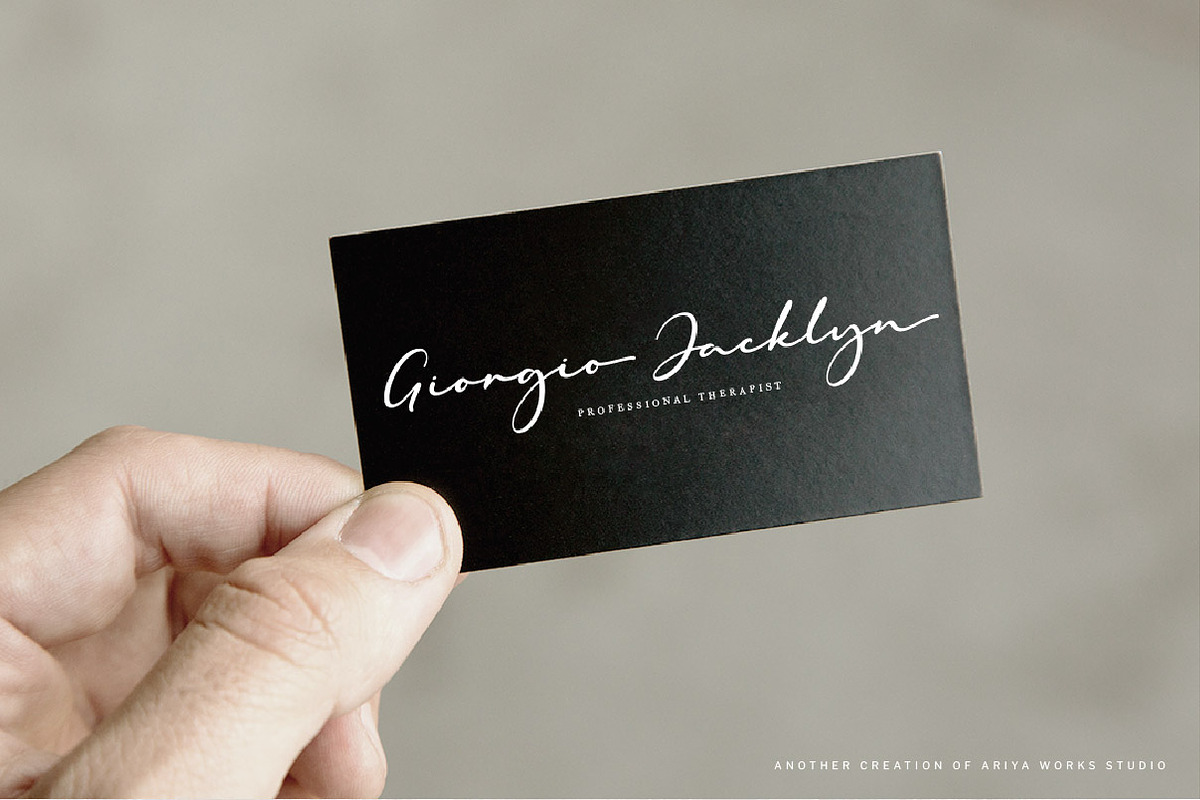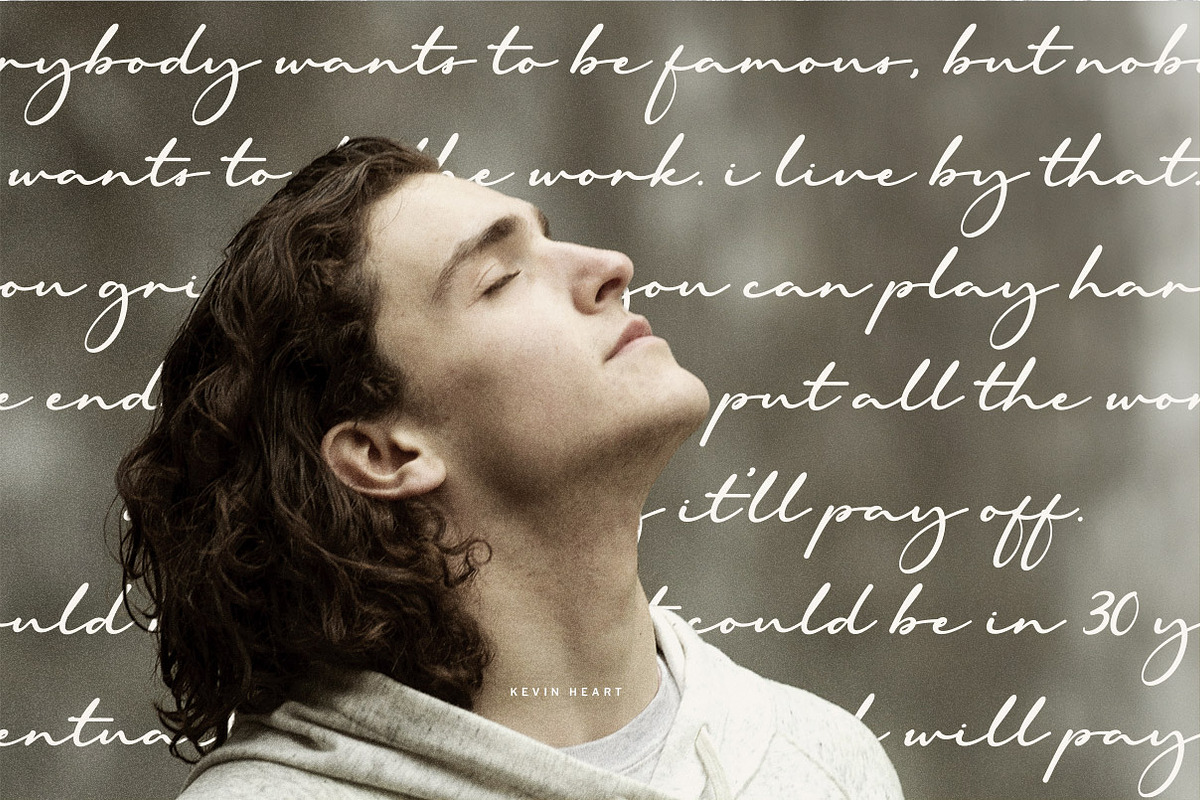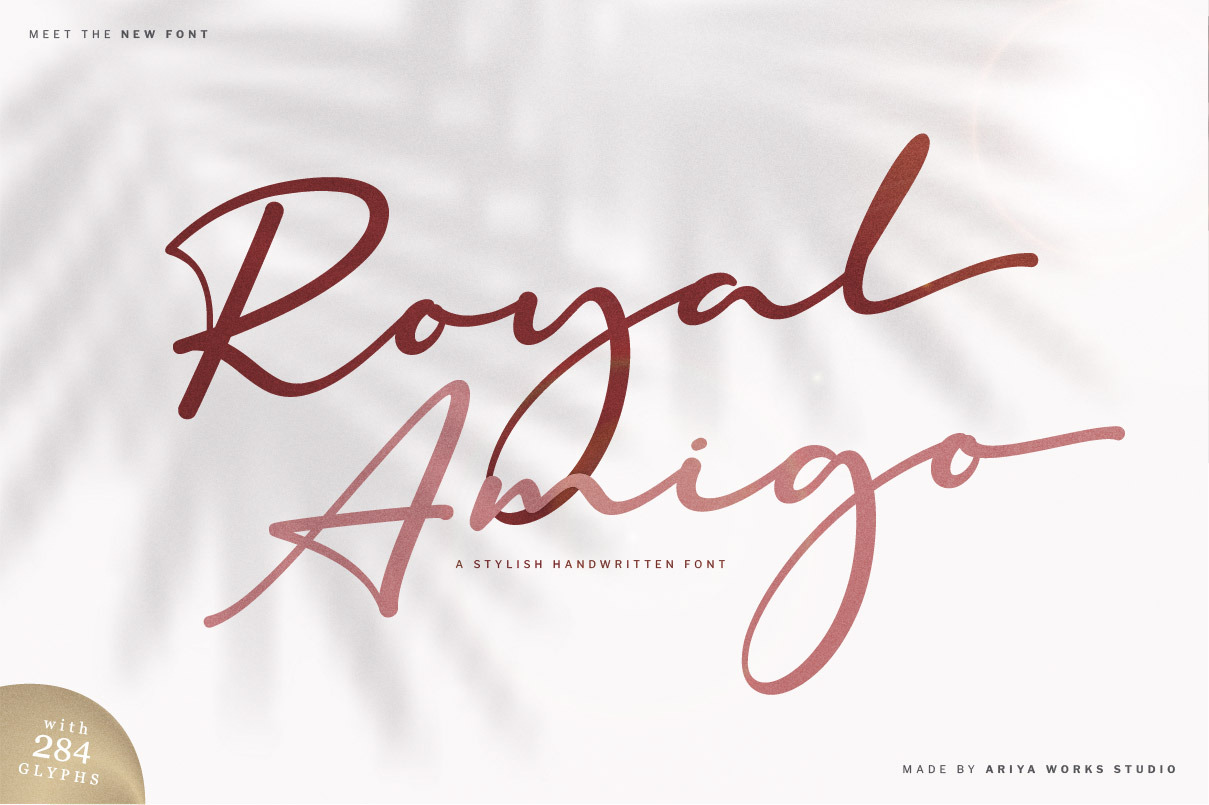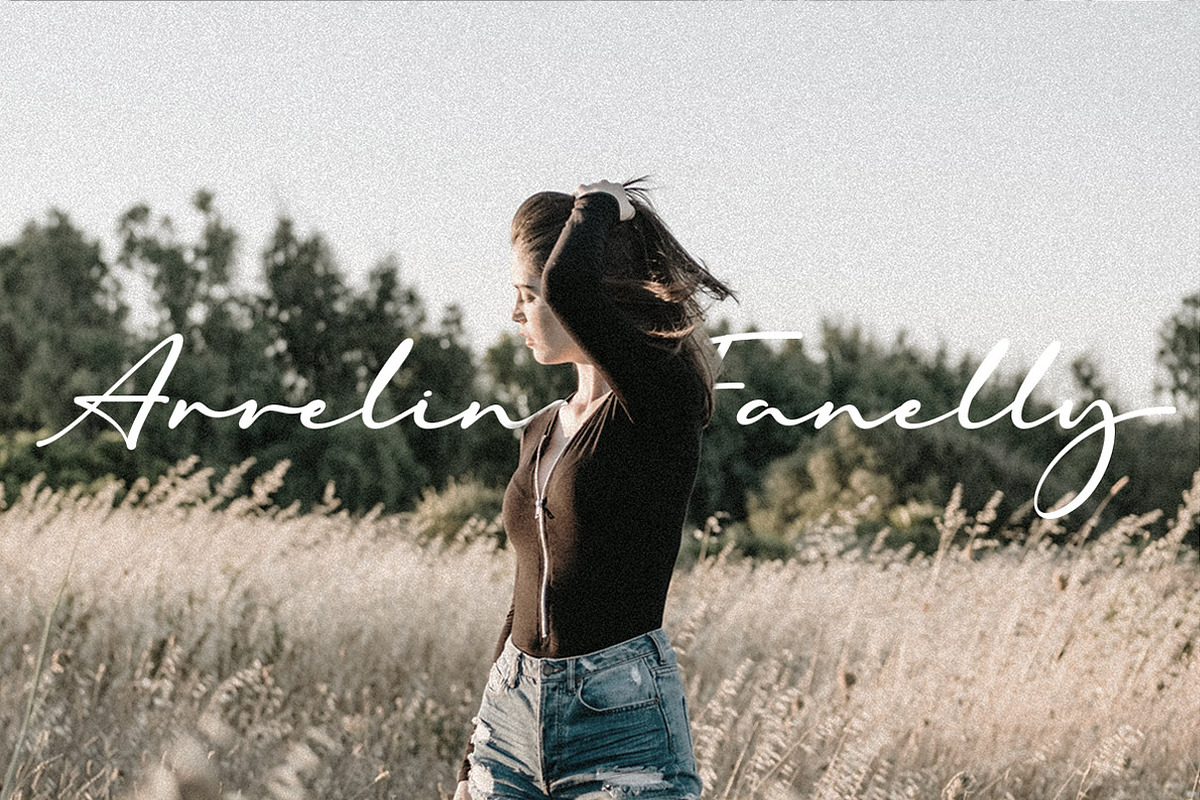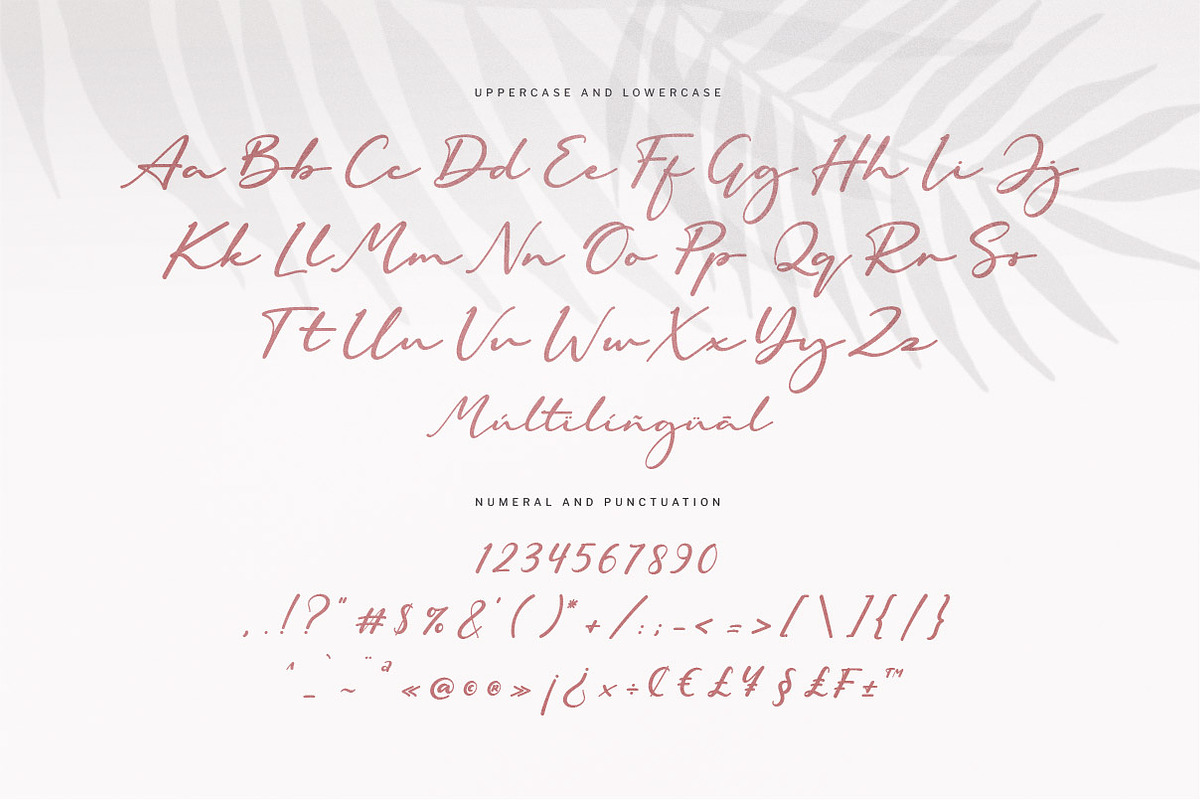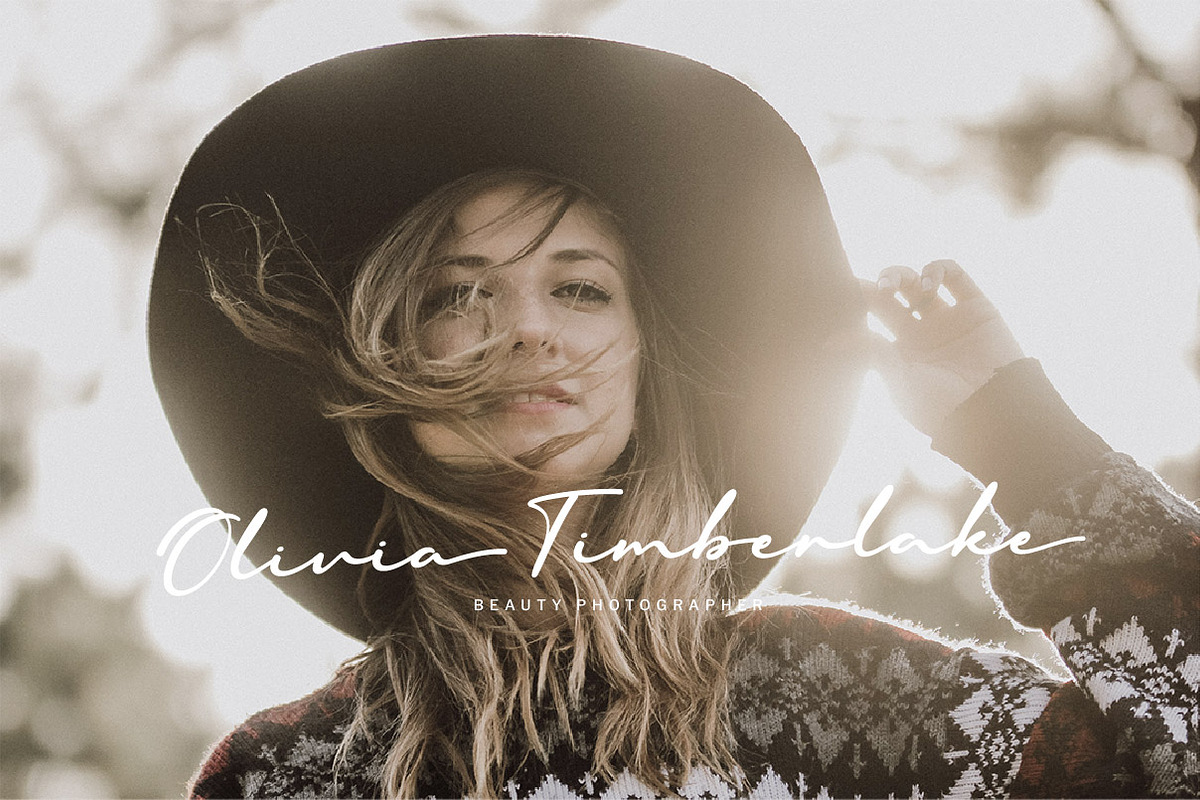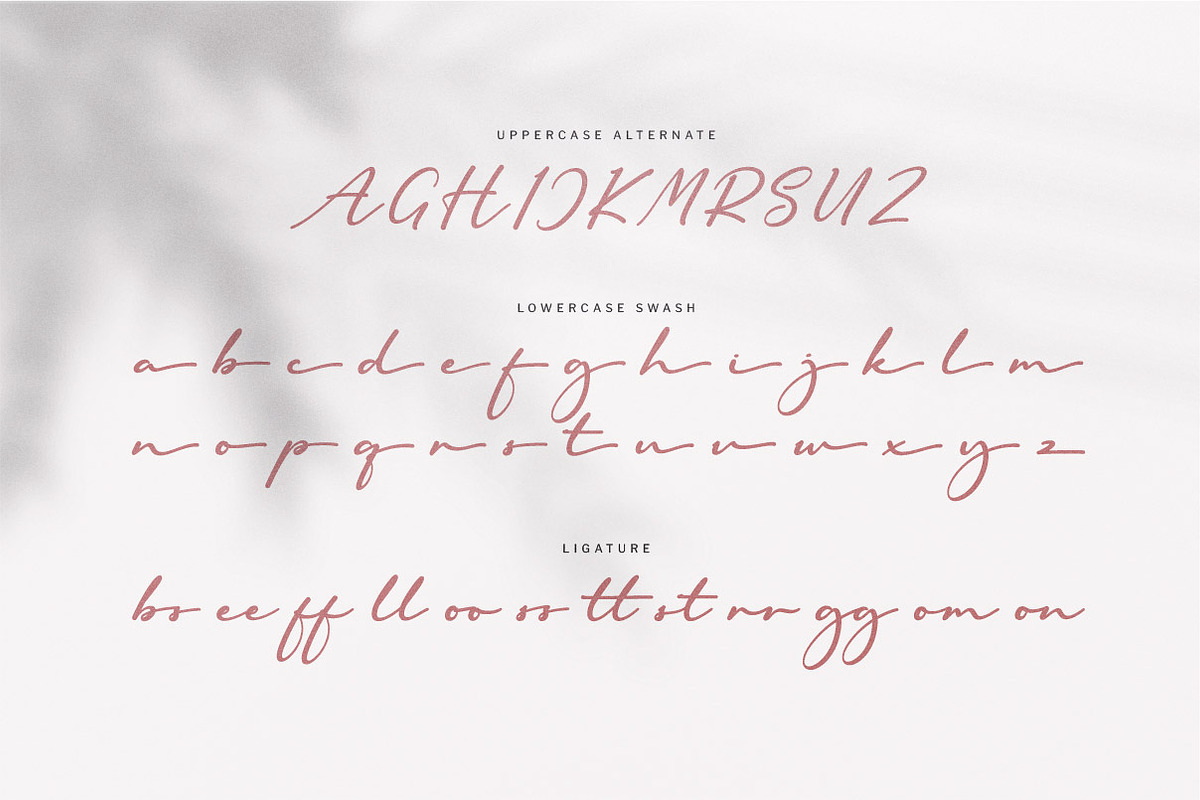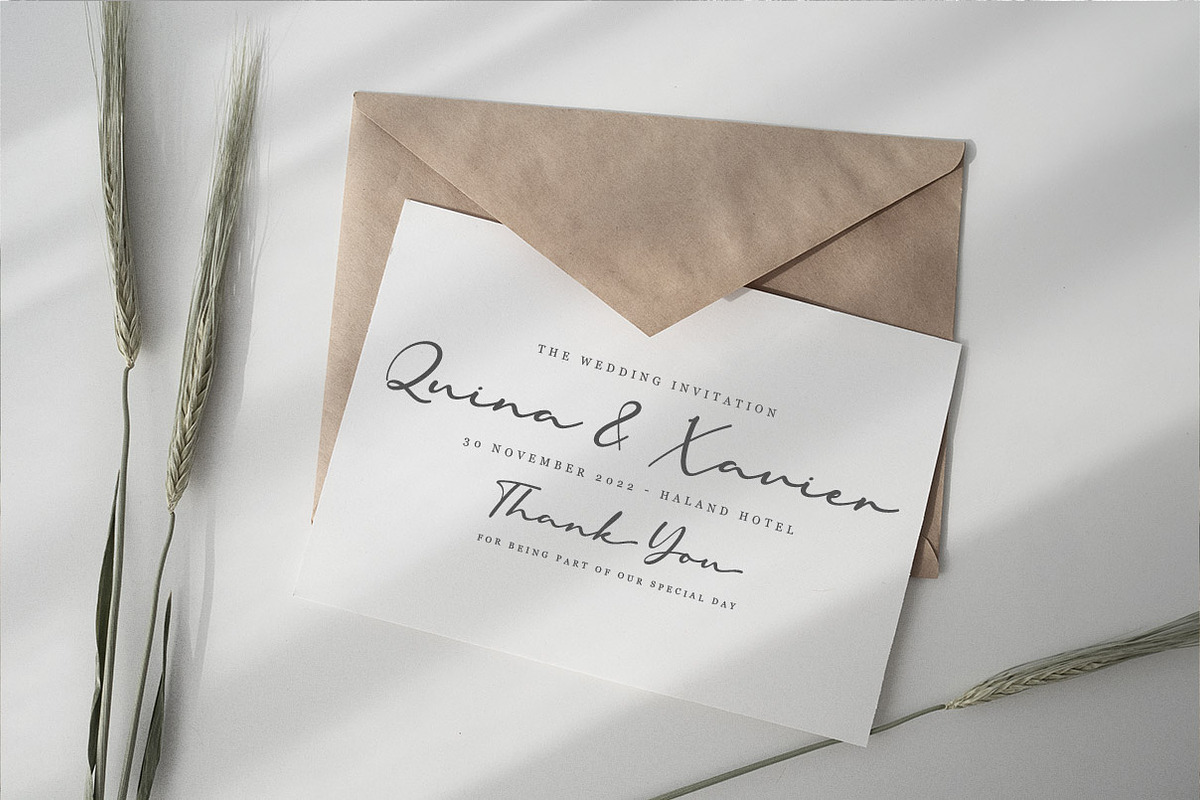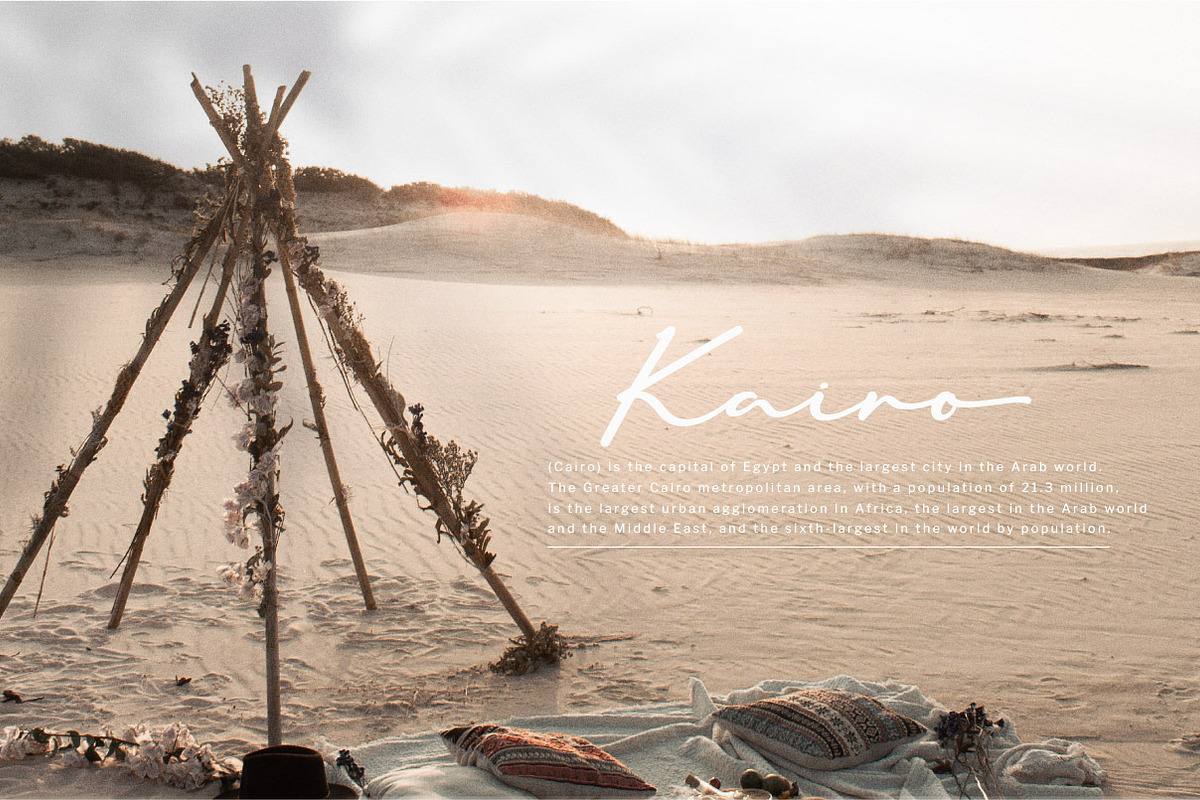
Royal Amigo | Modern Script Font
Introducing our Script font "Royal Amigo"
Royal Amigo is a stylish and dainty script font. It is suitable for any projects such as: logos, branding projects, label, photography, watermark, special events, and all your other lovely projects that need a beautiful script taste. Will make your design look nice and charming.
It offers support for all English characters, multiple opentype features (stylistic alternates and ligature) some characters in multiple languages and standard punctuation marks are included.